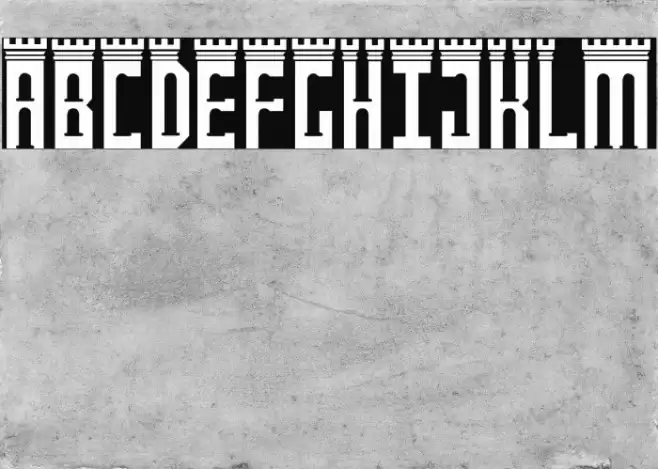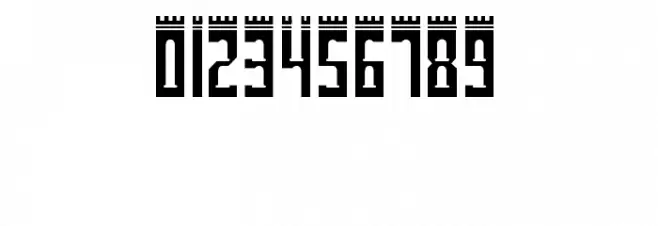
NewcastlE SoliD Font
NewcastlE SoliD Description
This font features a bold and striking design with a medieval castle-like motif. Each character is topped with a battlement-like structure, giving it a unique and decorative appearance. The letters are tall and narrow, with consistent vertical strokes and minimal curves, creating a strong and imposing look. The numbers and special characters follow the same stylistic theme, ensuring uniformity across all glyphs. This font is particularly eye-catching and would stand out in any design project requiring a bold statement.
A bold, decorative font with a medieval castle motif from Decorative fonts.
- Proposed Projects: Ideal for themed event posters, fantasy book covers, video game titles, and branding for medieval or historical-themed businesses.